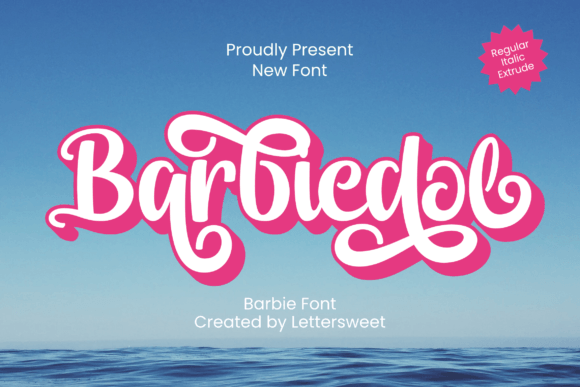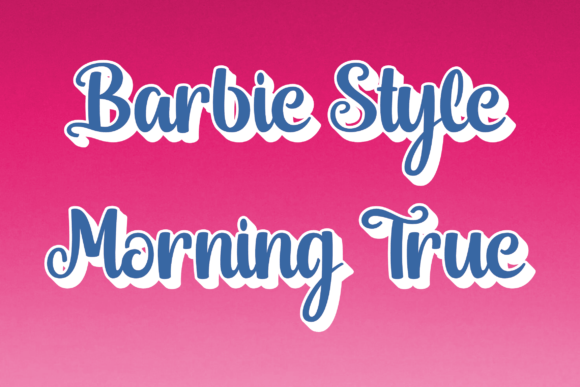
Barbiedol Font
Barbiedol is a script font inspired by the Barbie movies. The Barbiedol font has many alternative fonts. So the design can be more attractive.